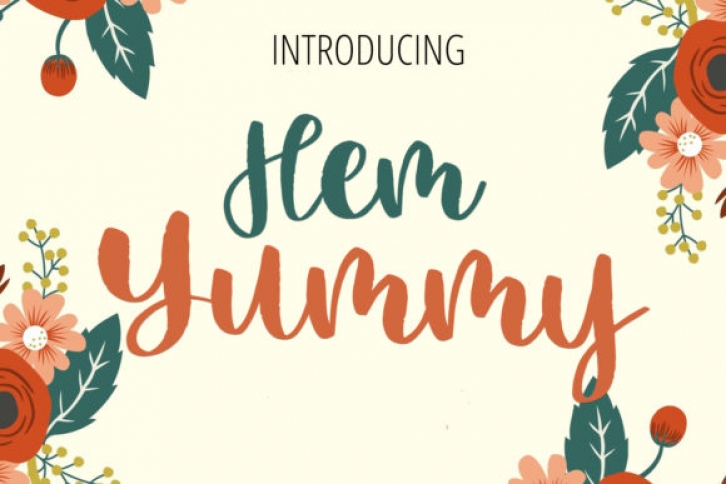
Hem Yummy is a fun and asymmetrical handwritten font. Summery and exotic, this typeface will create the perfect choice for elevating your crafting ideas!